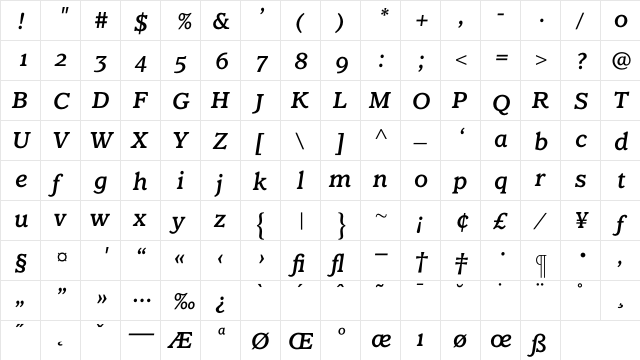
ClaremontMediumItalicOS Regular
Design Context for ClaremontMediumItalicOS Typeface
ClaremontMediumItalicOS offers clean, dependable letterforms without strong stylistic allegiance, making it a practical choice for designers who need flexibility. The slanted form adds forward momentum and visual energy.
Pro Tip: Try ClaremontMediumItalicOS for annotation and caption copy alongside an upright companion — the contrast in angle creates a dynamic but ordered typographic system.